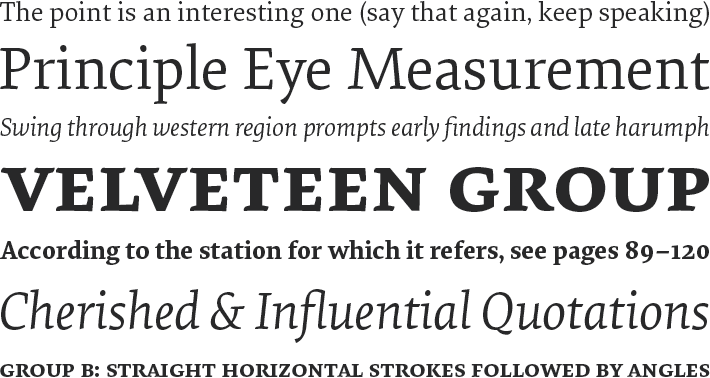
Elena (ProcessTypeFoundry)
The design of a new serif typeface meant for extended reading is an exercise in subtlety and restraint. The type designer traveling this path is faced with a limited and abstract palette with which to build unique character – stem widths, counter shapes, proportions, terminations and so on. Elena is a manipulation of these subtleties in a direct and unaffected way to create a modern serif typeface quietly balancing warmth with a crisp, tailored tone.